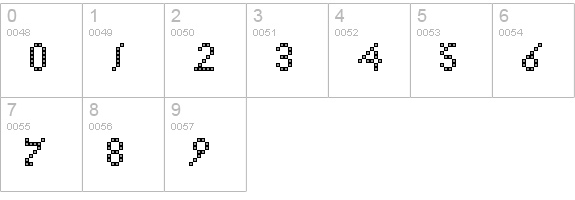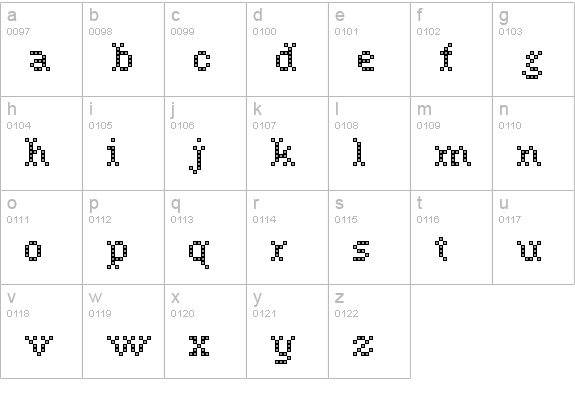
NeedlePointSew-Plain Regular Font Details
NeedlePointSew-Plain Regular is the standard, neutral variant in the NeedlePointSew typeface family \xE2\x80\x94 well suited to general body text, paragraphs, and standard typographic work.
NeedlePointSew-Plain Regular font is a charming and versatile typeface that exudes elegance and sophistication. Its intricate needlepoint-inspired design adds a unique touch to any project, making it perfect for a wide range of applications including branding, invitations, packaging, and more. This font features clean lines and a classic style that will give your designs a timeless appeal. The NeedlePointSew-Plain Regular font is easy to read yet adds a touch of flair, making it suitable for both headlines and body text. Its simplicity and versatility make it an excellent choice for a variety of design projects. Best of all, the NeedlePointSew-Plain Regular font is available for free download at FontsMarket.com. This means you can easily access this beautiful typeface and use it in your projects without any cost. Don't miss out on this opportunity to enhance your designs with the NeedlePointSew-Plain Regular font today!